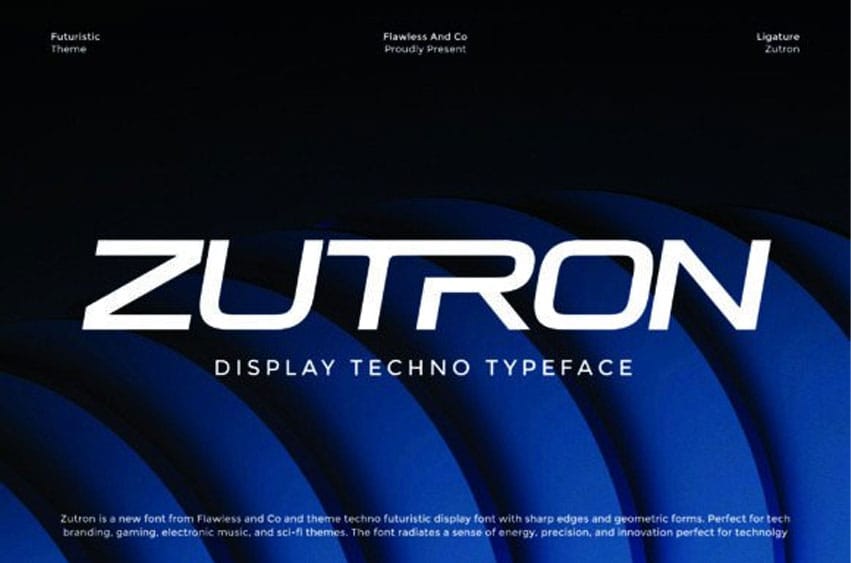
Zutron Font is a cutting-edge, futuristic display font designed with sharp edges and geometric precision. Inspired by technology, sci-fi, and modern digital aesthetics, this typeface brings a bold and innovative look to your designs.
Perfect for tech branding, gaming titles, electronic music covers, and futuristic themes, Zutron radiates energy, clarity, and forward-thinking design.